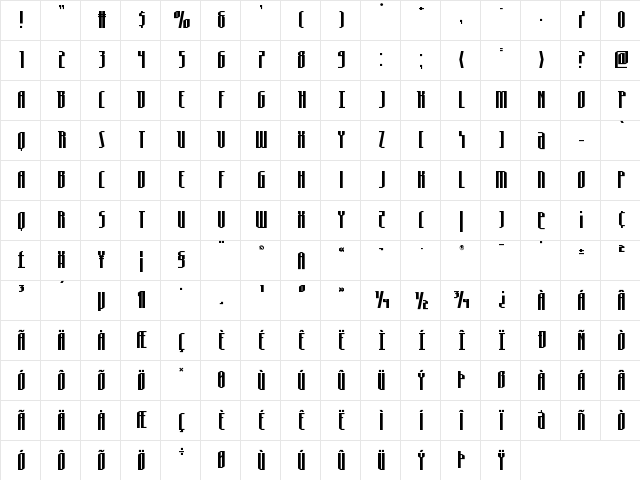
Hydronaut Title Regular
Design Context for Hydronaut Title Typeface
Hydronaut Title is a composed and adaptable typeface that performs quietly and consistently across a wide range of design contexts.